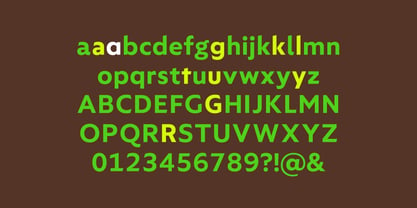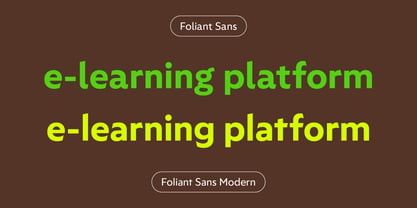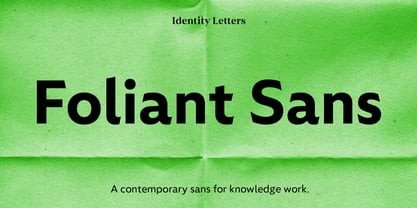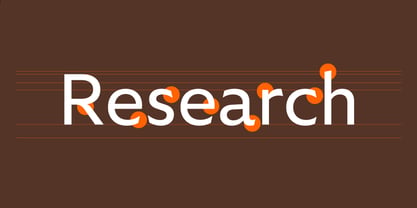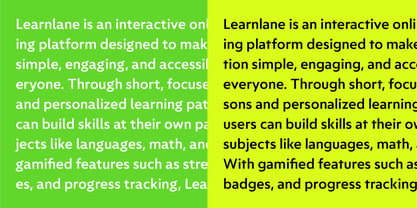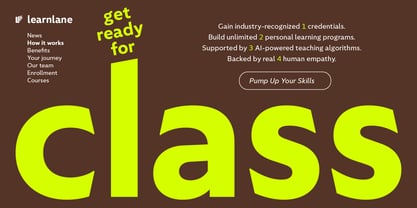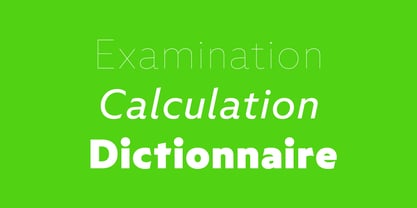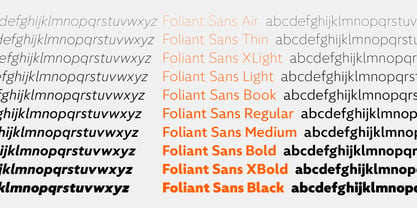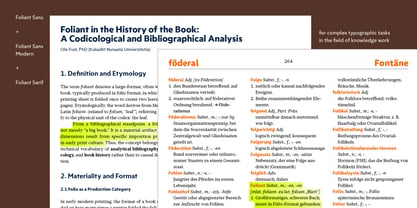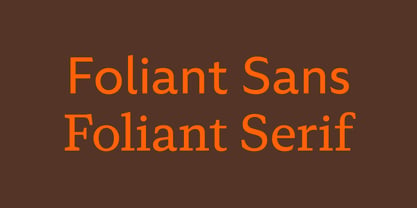
Foliant Sans
The Foliant Sans Font Family was designed by Moritz Kleinsorge and published by Identity Letters. Foliant Sans contains 40 styles and family package options. More about this family
What does a typeface for knowledge work look today? We investigated. The result: knowledge needs to be branded. A knowledge worker’s font needs to convey trust, poise, and elegance. It must be recognizable but never distracting as soon as you start reading. This is what we sought to achieve with our Foliant superfamily. Foliant Sans is a humanist sans-serif typeface with a geometric look and dynamically angled stroke endings. It’s approachable, legible, sincere. The default version mirrors the classic letterforms of Foliant Serif for optimum legibility and character distinction. Foliant Sans Modern is simpler, for a more graphic brand appeal in larger sizes. 20 weights, 1000+ characters.